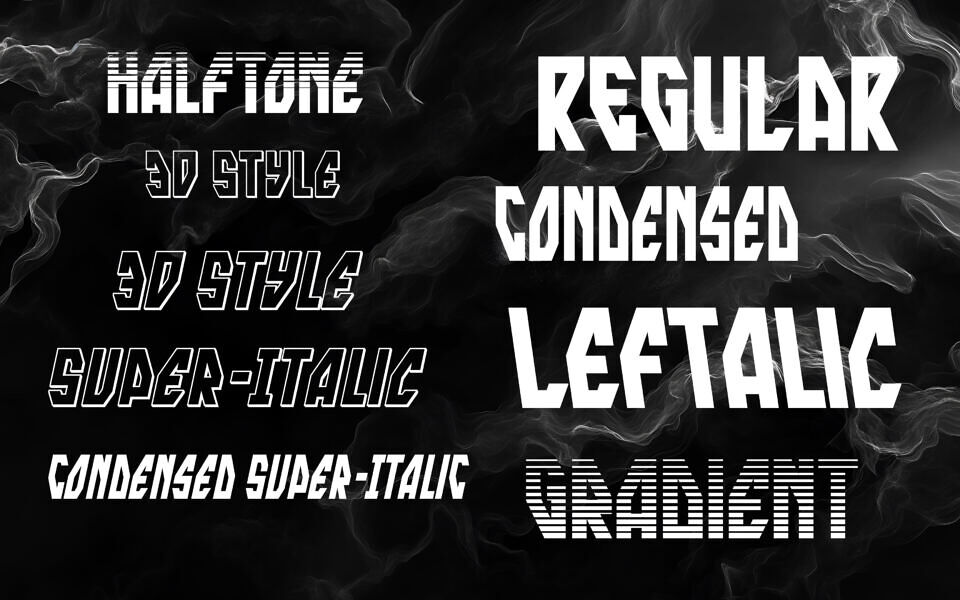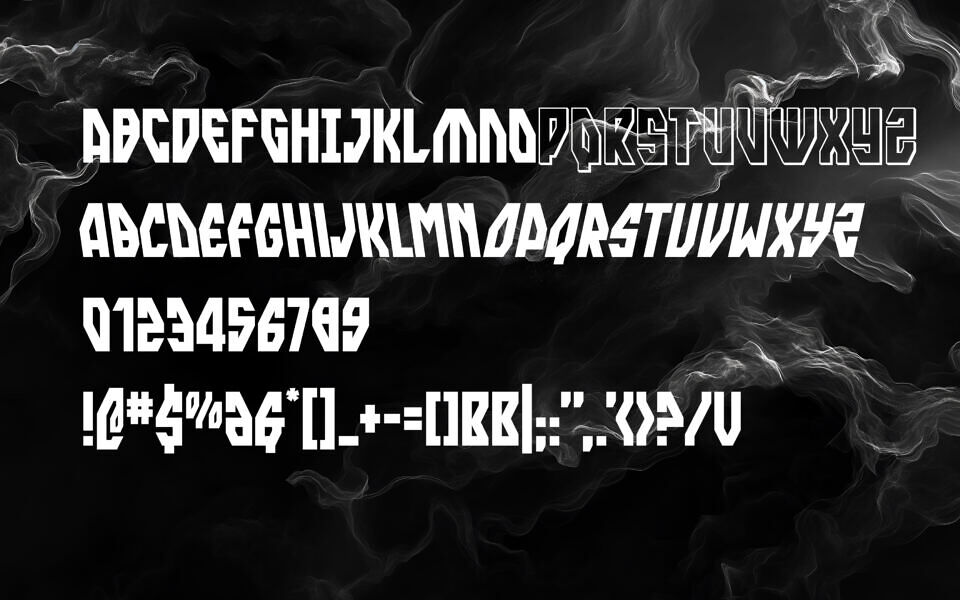
Skyrange Font
Skyrange is a futuristic geometric display font with sharp, clean lines and modern letterforms that evoke a tech-inspired, sci-fi aesthetic. Available in a wide range of styles — from italic and condensed to 3D, gradient, and halftone variants — it offers versatile design flair for headlines, logos, posters, and branding projects.
Its sleek, contemporary shapes make text stand out with bold character and visual impact, perfect for forward-looking graphic work and creative layouts.
Designed by: Iconian Fonts